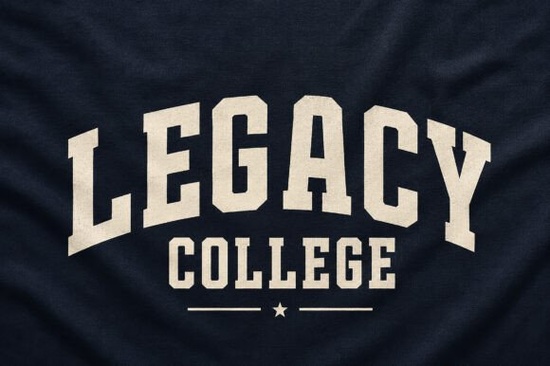
If you're working on sports branding, team merchandise, or campus-themed designs, the Legacy College Font is worth a close look. It's a block-display typeface that draws directly from the visual language of mid-century university letterman jackets, varsity athletics, and classic campus gear. The design features an arched baseline and a subtle fabric grain texture details that give it an authentic, heritage-driven feel without looking overworked.
This font works especially well for designers who need that recognizable "college" look but want something with more craft and texture than a standard bold sans-serif. Whether you're building a logo for a local sports league, designing print-on-demand apparel, or creating posters for an alumni event, Legacy College brings a strong, established tone to any layout.
What kind of projects is Legacy College Font best for?
Legacy College is designed as a display font, which means it's built for headlines, logos, and large-format text rather than body copy. Its bold, blocky letterforms are meant to be seen at a distance on jerseys, banners, and signage. Here are some practical ways to use it:
- Sports team logos and branding perfect for local leagues, school teams, or recreational clubs that want a polished varsity look
- Print-on-demand apparel t-shirts, hoodies, and caps with a vintage athletic aesthetic
- Campus event posters homecoming, pep rallies, intramural tournaments, and graduation merchandise
- Streetwear graphics the textured, old-school feel pairs well with casual urban design styles
- Vintage alumni merchandise reunion shirts, class gifts, and fundraising materials
- Social media graphics bold enough to stand out in a feed, especially for sports-related content
The subtle grain texture baked into the letterforms sets it apart from cleaner, more modern typefaces. It adds visual interest without requiring any extra design work on your part.
How does Legacy College compare to other varsity and display fonts?
There are plenty of college-style fonts out there, but not all of them nail the balance between heritage authenticity and modern usability. Legacy College leans into the mid-century athletic tradition with its arched baseline a classic detail you'd see on vintage sportswear while the fabric texture gives it a tactile quality that digital-only fonts often lack.
If you're exploring different directions for a project, it helps to compare options. For a cleaner, more contemporary varsity style, you might also look at typefaces designed with a preppy varsity lettering style. If you need something with a retro script feel for companion graphics or secondary text, retro script fonts pair nicely with bold display type like this one.
For projects that call for a different kind of bold presence think oversized headers or packaging browsing through other bold display typefaces can help you find the right fit. And if your design work includes youth sports or family-friendly themes, there are also playful display fonts that might suit a softer tone.
On the athletic side, if you specifically need typefaces built for jersey number styling or soccer and football jersey designs, those are worth exploring as well.
As with any display font, keep in mind that it's optimized for large-scale use. It looks its best at bigger sizes where the texture details and letter spacing can really come through. Using it for small body text would lose the character that makes it special.
Who is this font a good fit for?
Legacy College works well for a range of creative professionals and hobbyists:
- Print-on-demand sellers who want to add athletic-themed designs to their store without hiring a custom lettering artist
- Small business owners running local sports programs, gyms, or fitness brands
- Graphic designers building brand identities for teams, leagues, or campus organizations
- Crafters and hobbyists making custom apparel, signs, or party decorations with a varsity theme
- Social media managers creating promotional graphics for sports events or school activities
Quick design tips for working with this font
- Keep it big. This font earns its character at larger sizes. Don't shrink it below 30pt if you can help it.
- Pair it wisely. Use a simple sans-serif or a complementary script font for secondary text so the display font stays the hero.
- Use high contrast backgrounds. The texture reads better on solid, contrasting backgrounds than on busy patterns.
- Test before you commit. Preview the font with your actual text before finalizing some display fonts handle certain letters better than others.